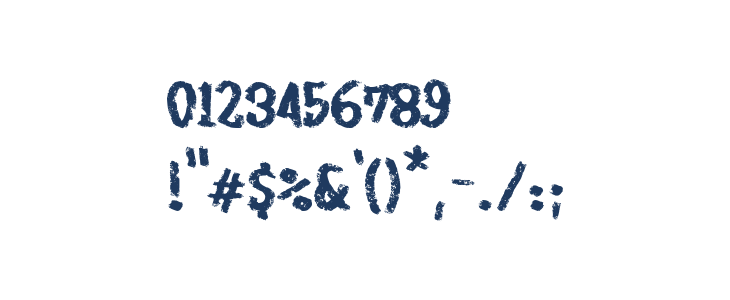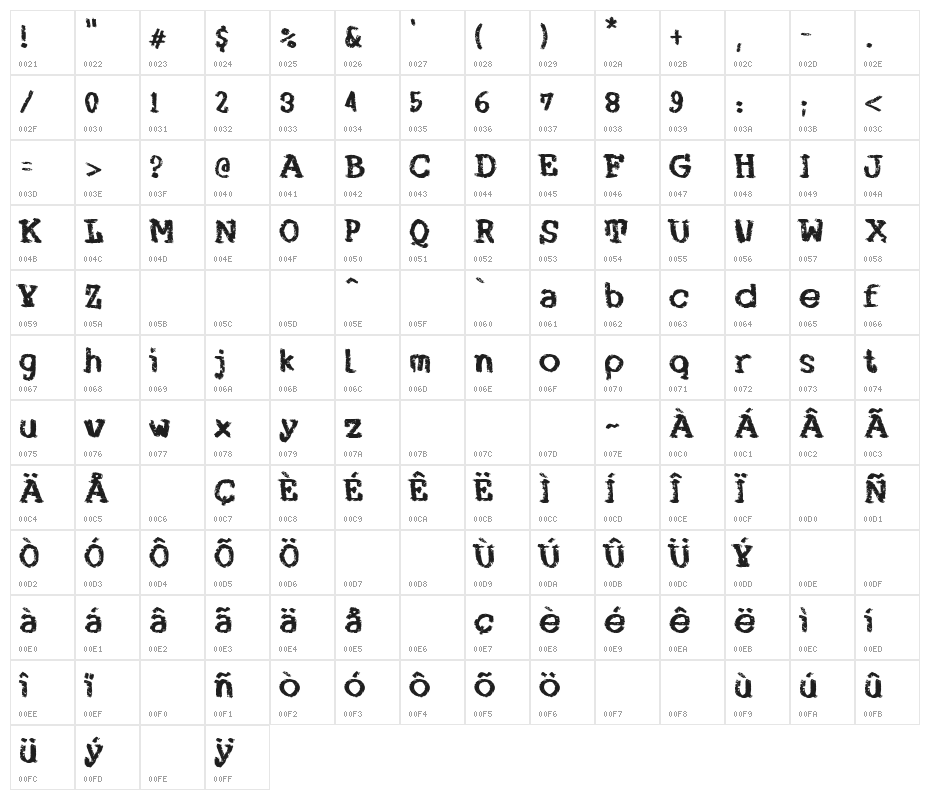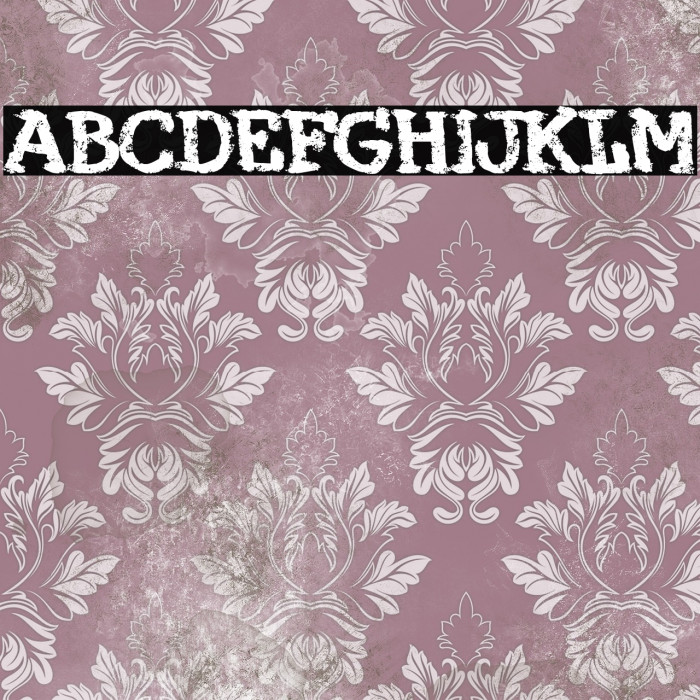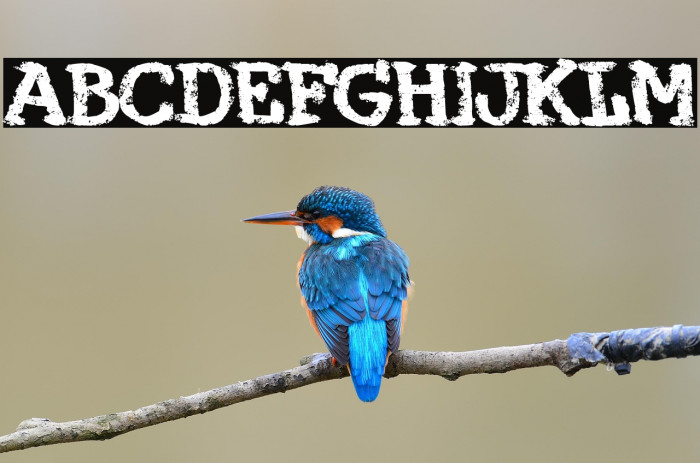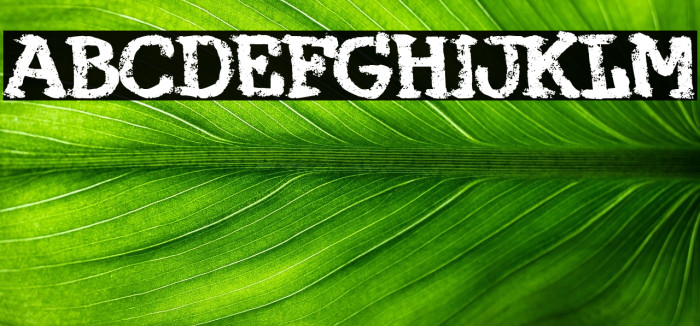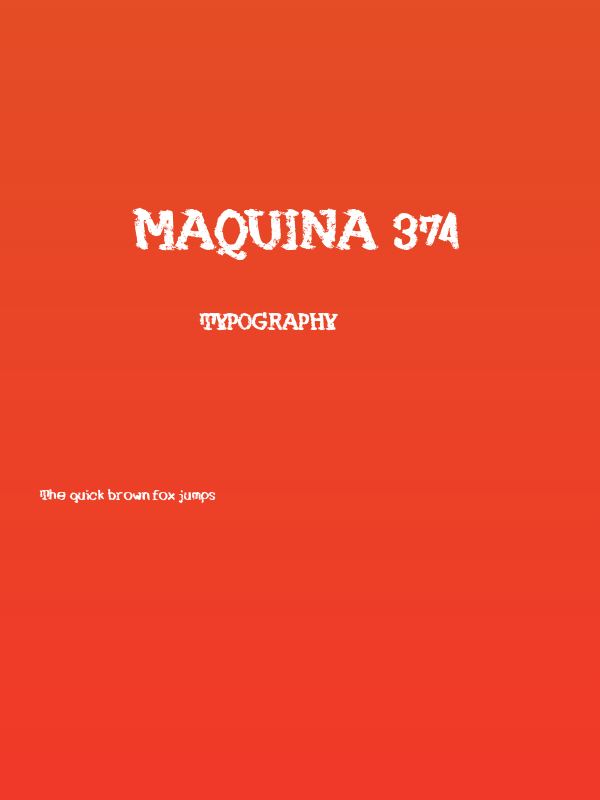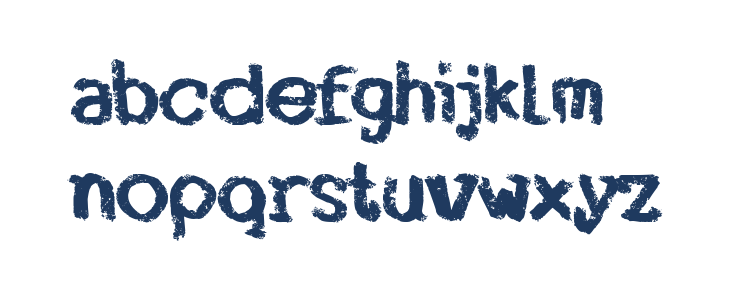
Maquina 374 Font
Maquina 374 Description
This font features a distressed, textured appearance that gives it a rugged and worn look. The characters are bold and have a rough, uneven edge, reminiscent of a vintage typewriter or a weathered stamp. The uppercase and lowercase letters maintain a consistent style, with a slightly condensed form that adds to its unique character. Numbers and special characters follow the same distressed pattern, ensuring a cohesive look across all text. The font's design is ideal for projects that require a gritty, industrial feel, such as posters, album covers, or branding for edgy products.
| Proposed Projects | Ideal for posters, album covers, branding, and any project needing a gritty, industrial feel. |